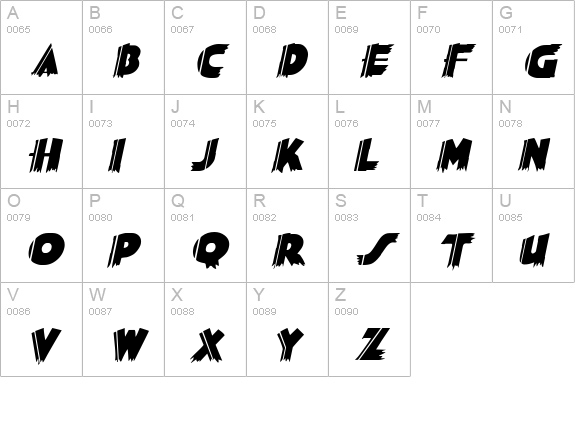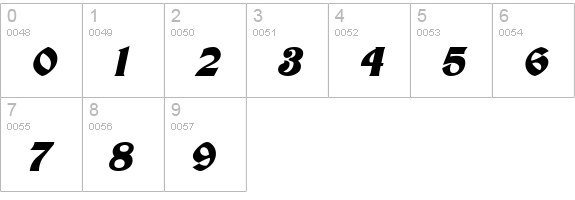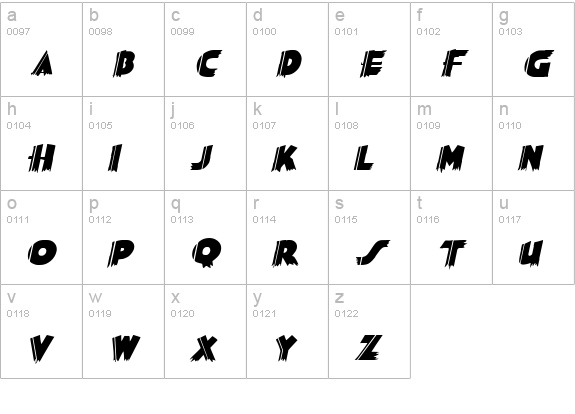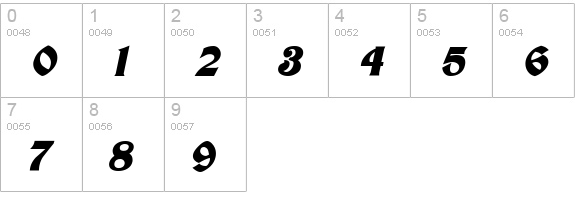
Poster Italic Font Details
Poster Italic is a distinctive, italic variant in the Poster typeface family \xE2\x80\x94 well suited to design and typography projects.
Poster Italic font is a stylish and modern typeface that adds a touch of elegance to any design project. With its sleek and sophisticated italicized style, this font is perfect for creating eye-catching posters, advertisements, and other visual materials. The unique curves and angles of Poster Italic font give it a distinctive look that will make your text stand out. The best part is that Poster Italic font is completely free to download at FontsMarket.com. Whether you're a graphic designer, a student, or anyone in need of a high-quality font, you can easily access this beautiful typeface without any cost. So go ahead and elevate your designs with Poster Italic font today!